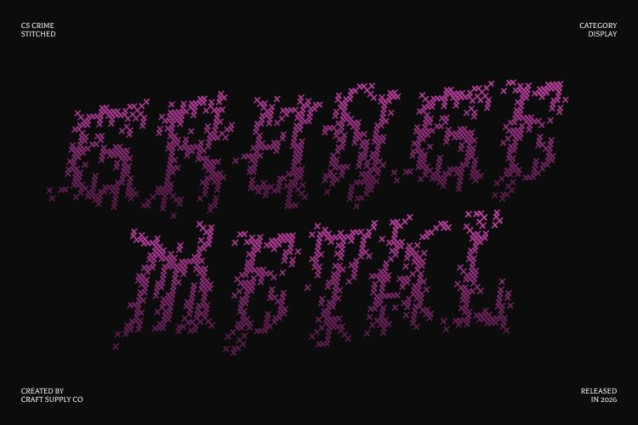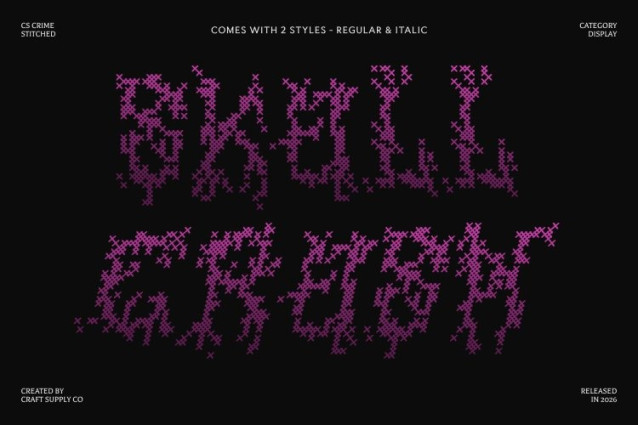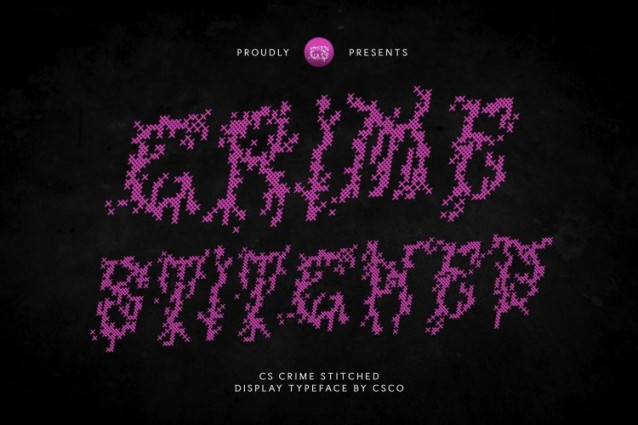
CS Crime Stitched Font is a bold and intricate display font designed to capture the raw, gothic intensity of black metal culture. Its letterforms feature sharp, chaotic shapes that resemble thorny branches and jagged patterns. Enhanced with a stitched style inspired by thread sewn or embroidered on fabric, this version introduces a handcrafted texture that contrasts beautifully with the font’s dark and aggressive aesthetic.
Jagged Forms with Embossed Stitch Detail
The thorn-like structures and spiked letterforms of this font are layered with a distinctive cross-shaped stitch pattern, producing an embossed, fabric-like texture across each character. This stitched detailing adds depth and tactile character while bringing a subtle classic, nostalgic, relaxed, and warm impression that uniquely balances the font’s fierce visual energy.
Dark Expression with Chaotic Visual Impact
This font embraces the raw, untamed spirit of black metal design. Its sharp strokes, dramatic shapes, and intentionally complex structure create a powerful visual presence that feels mysterious, intense, and rebellious. The stitched texture enhances the layered aesthetic, making the font feel both handcrafted and ferocious.
Perfect for Dark and Experimental Design Projects
This is ideal for album covers, band logos, underground posters, dark-themed branding, and experimental graphics. Its fusion of black metal aggression and stitched craftsmanship produces a distinctive typographic style that stands out with dramatic intensity, artistic chaos, and unforgettable visual character.